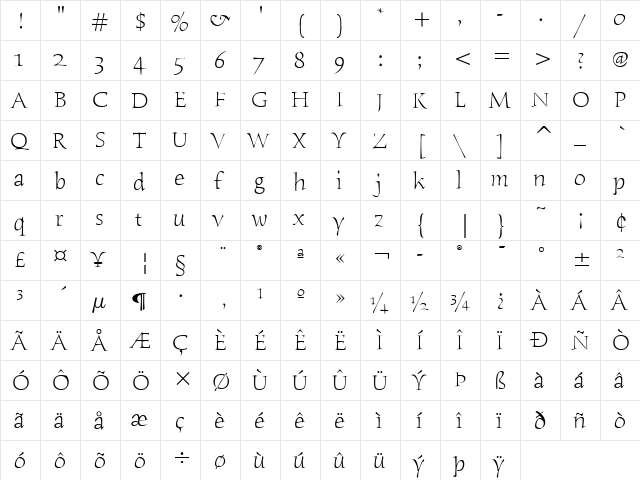
Humana Serif ITC Light
Design Context for Humana Serif ITC Typeface
Humana Serif ITC brings classic typographic sensibility to the table — its serifs and measured letterforms reflect centuries of print heritage. The delicate stroke weight brings airiness and refinement to layouts.
Pro Tip: Set Humana Serif ITC at slightly larger body copy sizes than you would a regular-weight serif to compensate for its delicate stroke contrast.